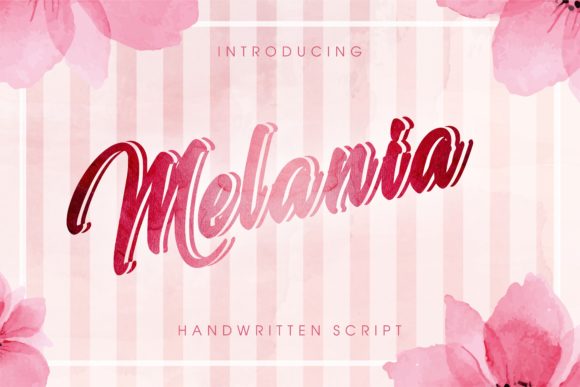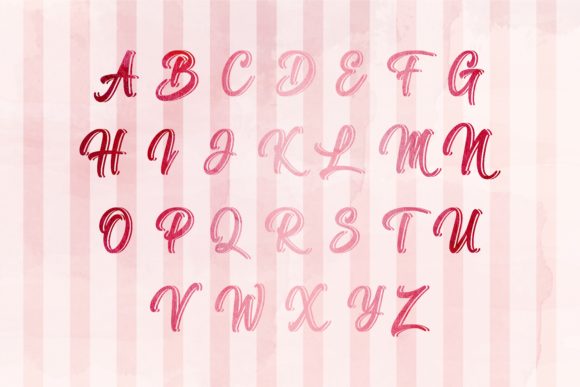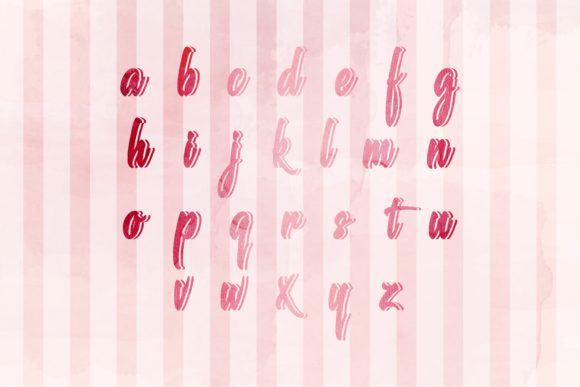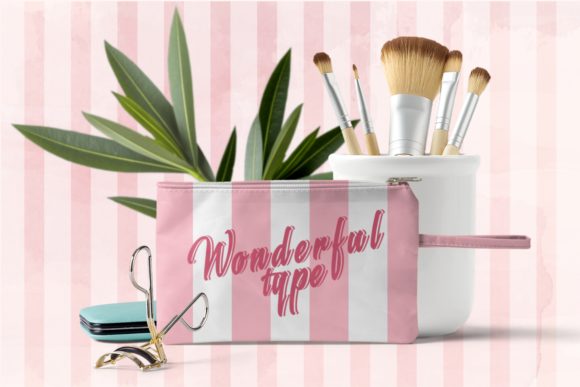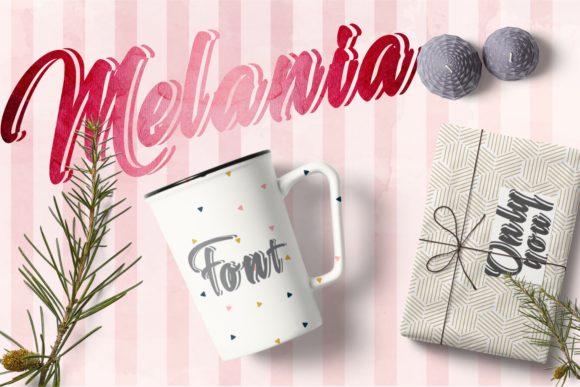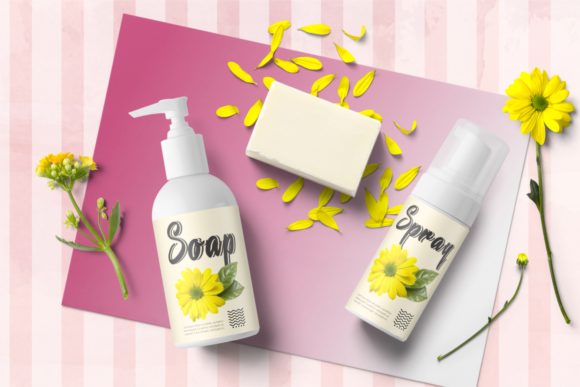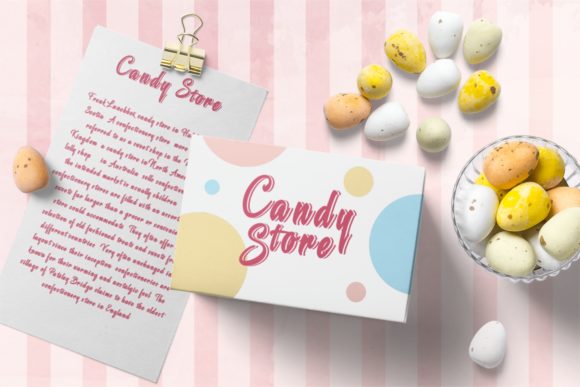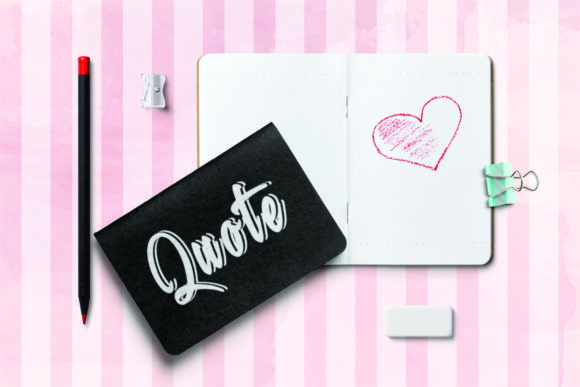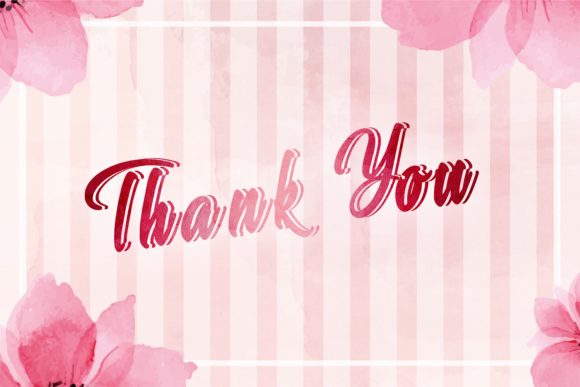
Melania Font
Introducing “The Melania,” an attractive handwritten script designed with a bold and striking style that is sure to make any design stand out. This font is more than just a typeface; it’s a design asset crafted with attractiveness and impact, making it perfect for a variety of projects that demand a bold and eye-catching handwritten script.
“The Melania” stands out with its bold and striking handwritten style, capturing attention and adding a unique flair to your text. Whether you’re working on logos, branding, headlines, posters, or any project that requires a bold and impactful font, this script delivers with its distinctive and eye-catching character.
Its bold and striking style ensures that your text becomes a focal point, making a strong statement in your design. Logos designed with this font convey a sense of impact and memorability, creating a bold and stylish brand identity. Headlines, posters, and other designs crafted with “The Melania” showcase a contemporary and attention-grabbing vibe, making them visually appealing and versatile.
The versatility of “The Melania” makes it a great choice for a variety of creative applications, providing a handwritten script that adds a touch of boldness to any design context.
In summary, “The Melania” is more than just a font; it’s a design companion that brings an attractive handwritten script with a bold and striking style to your projects. Embrace its impact for logos, branding, headlines, and more, and let “The Melania” enhance your designs with a bold and attention-grabbing character.